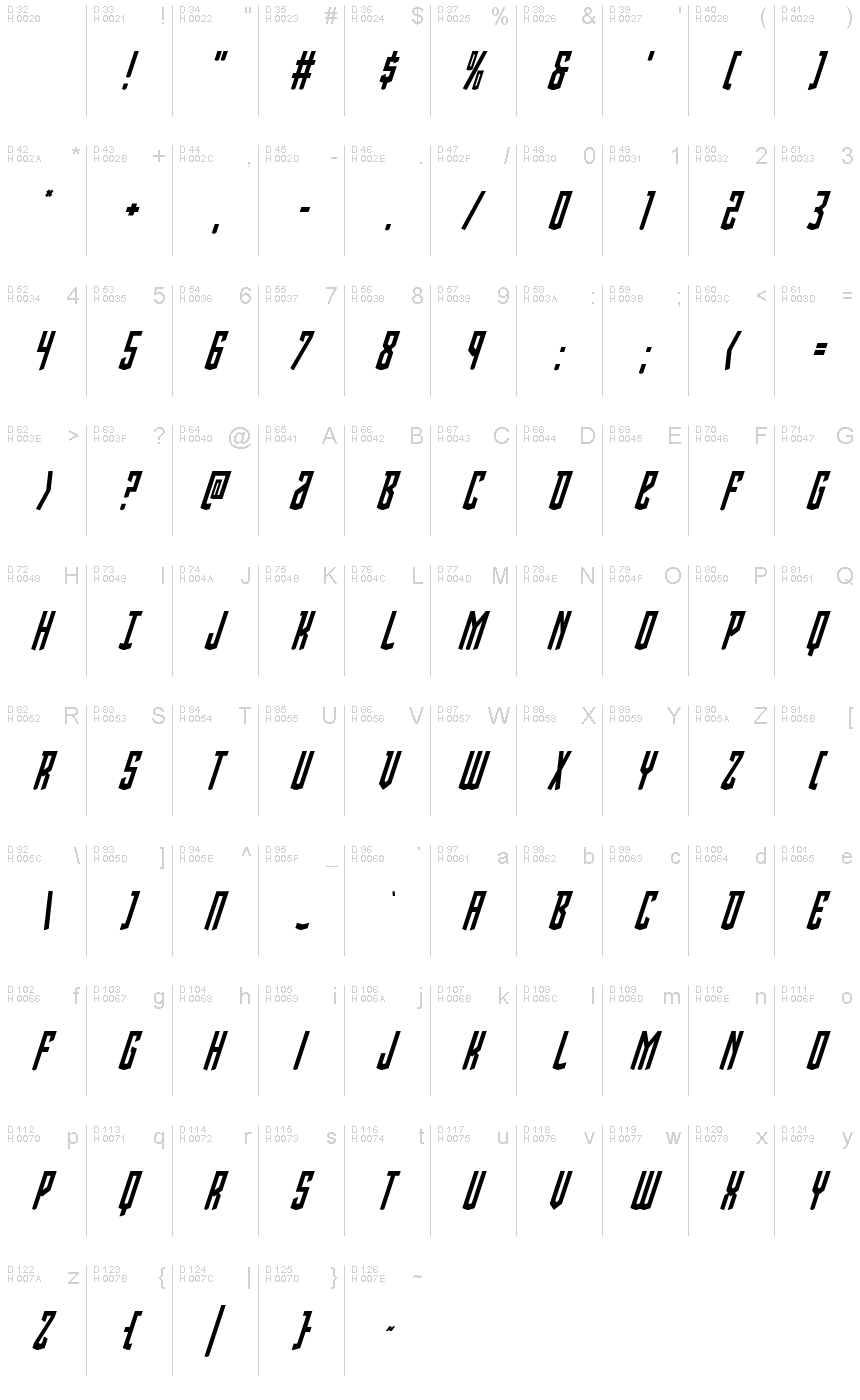
Viceroy of Deacons Conden Italic font, part of the Viceroy of Deacons family by Iconian Fonts, offers a striking gothic appeal fused with modern flair. Its condensed form exudes a dynamic energy perfect for making bold statements in any design project. The italicized style enhances its edgy yet sophisticated look, making it an ideal choice for branding, posters, and editorial work that demand attention.